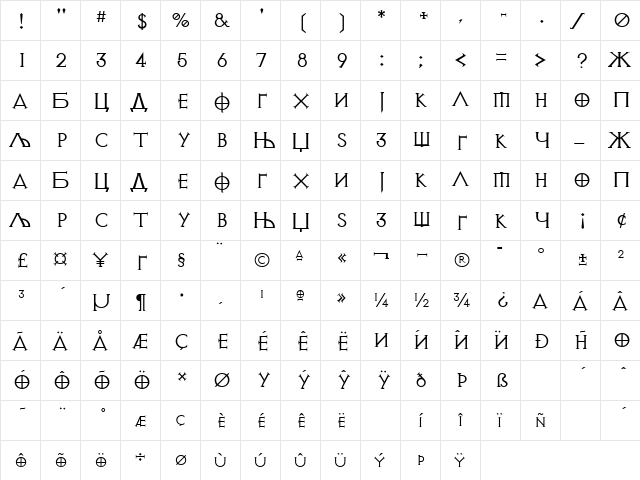
X_Avalon Light Normal Regular
Design Context for X_Avalon Light Normal Typeface
X_Avalon Light Normal takes a measured approach to typography — its balanced proportions and neutral character make it a reliable workhorse for both digital and print work. Its slender proportions lend an understated elegance to any composition.